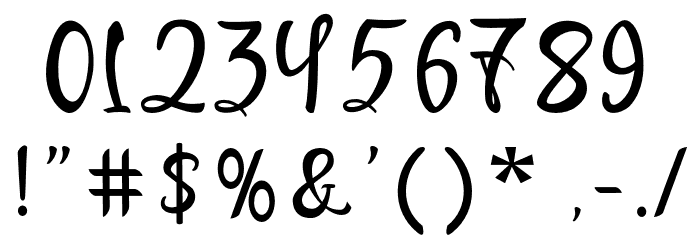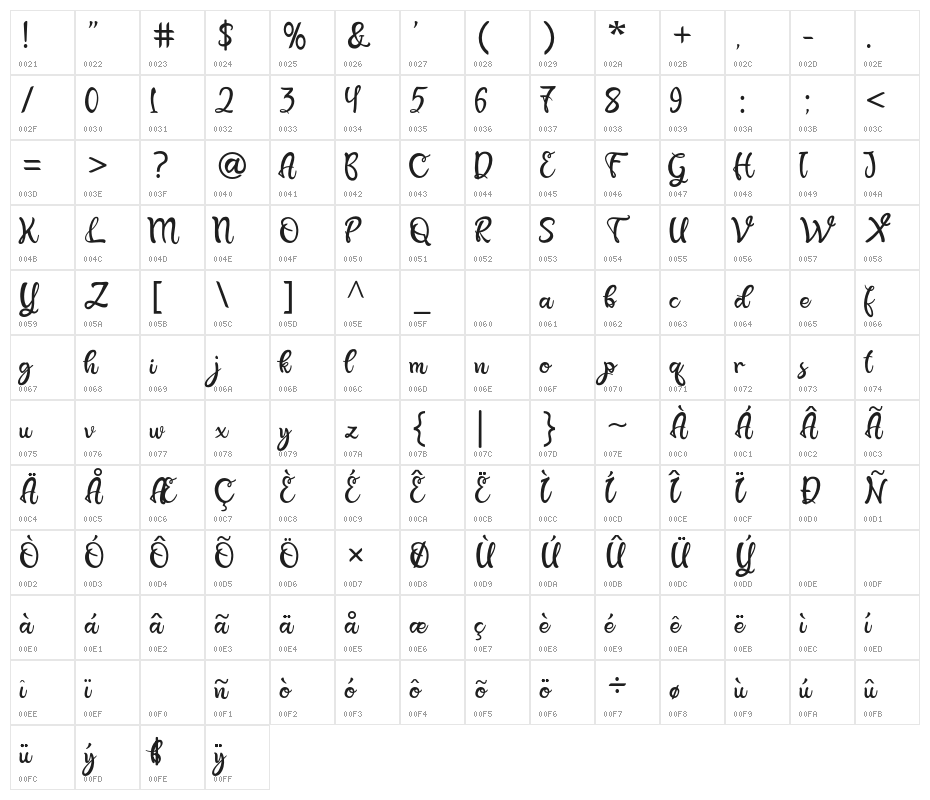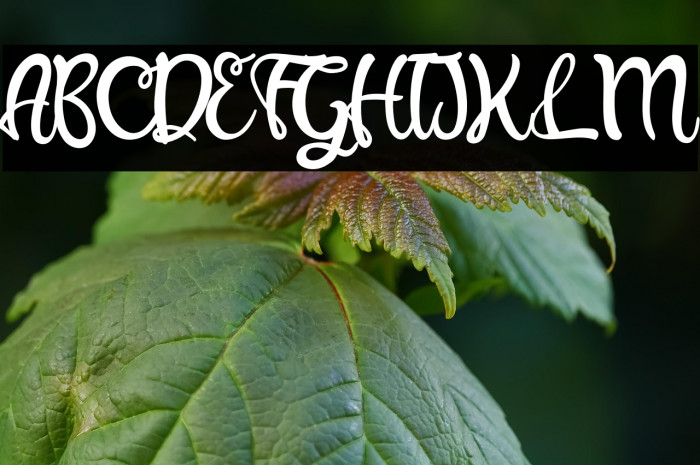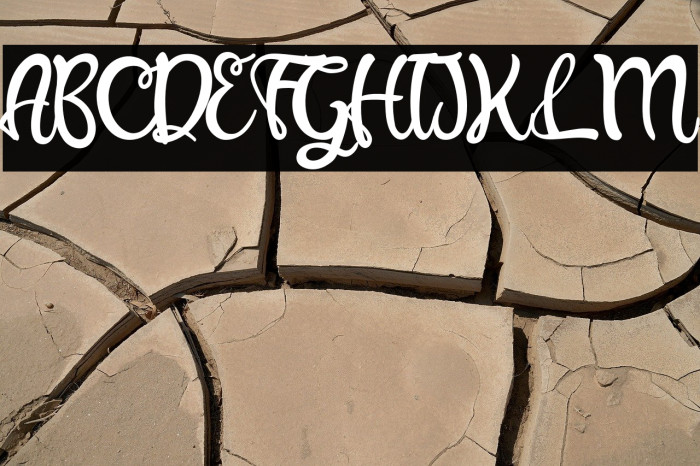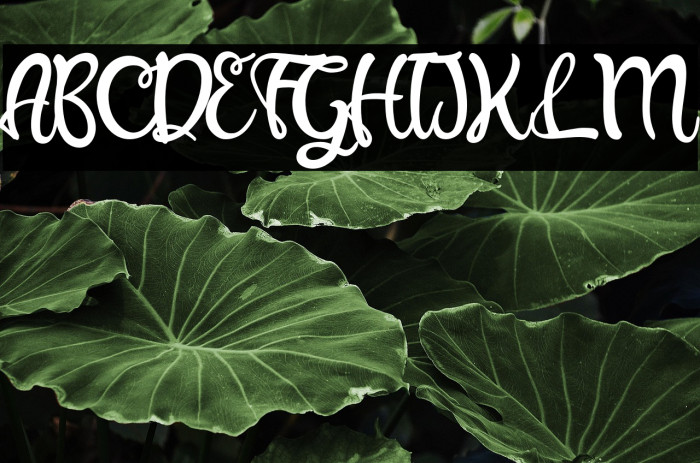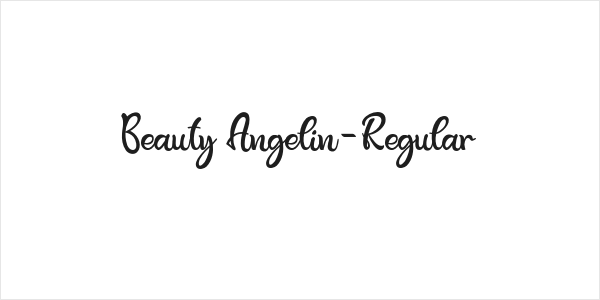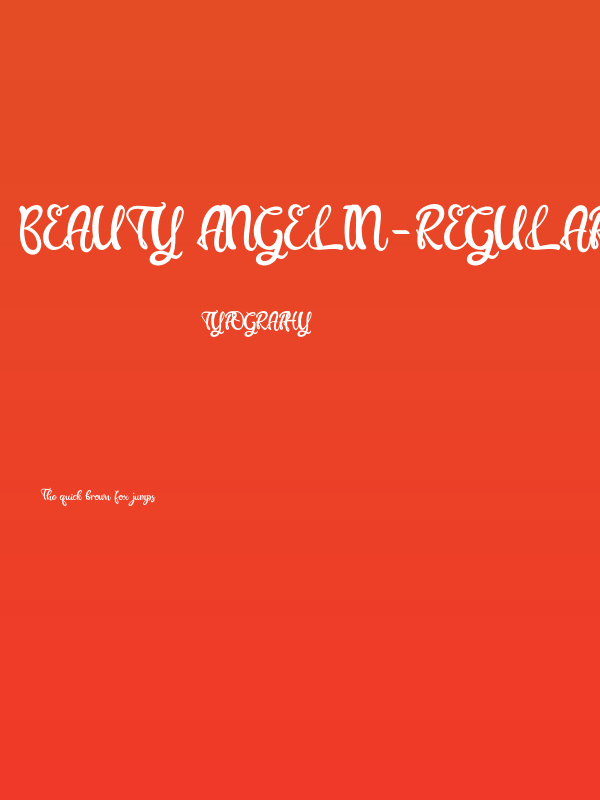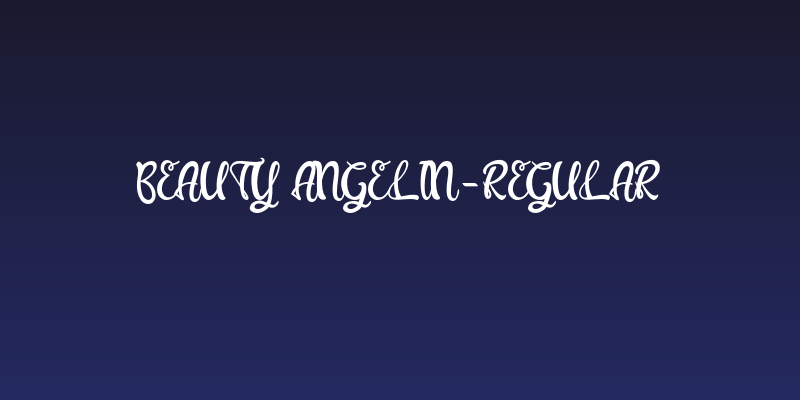
Beauty Angelin-Regular Font
Beauty Angelin-Regular Description
This font features an elegant and flowing script style, characterized by its smooth, cursive strokes and artistic flair. The uppercase letters are bold and ornate, with intricate loops and swirls that add a touch of sophistication. The lowercase letters maintain a consistent flow, complementing the uppercase with their graceful curves. Numbers and special characters are designed to match the overall aesthetic, ensuring a cohesive look across all text. This font is perfect for projects that require a personal and artistic touch, such as invitations, greeting cards, or branding materials.
| Proposed Projects | Ideal for wedding invitations, greeting cards, branding, and decorative projects. |